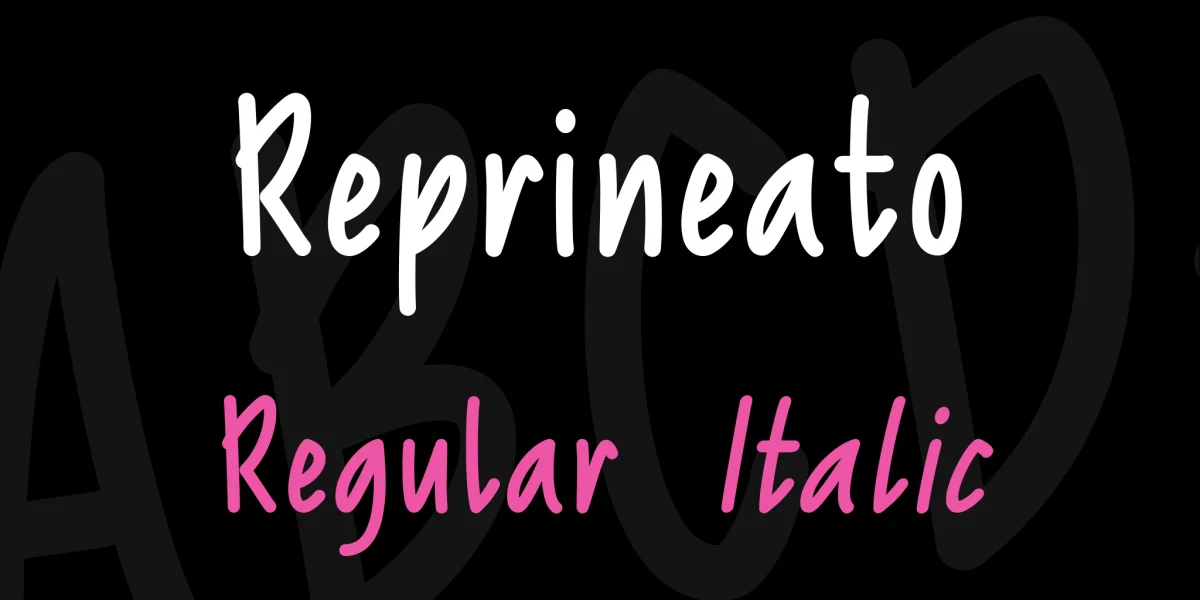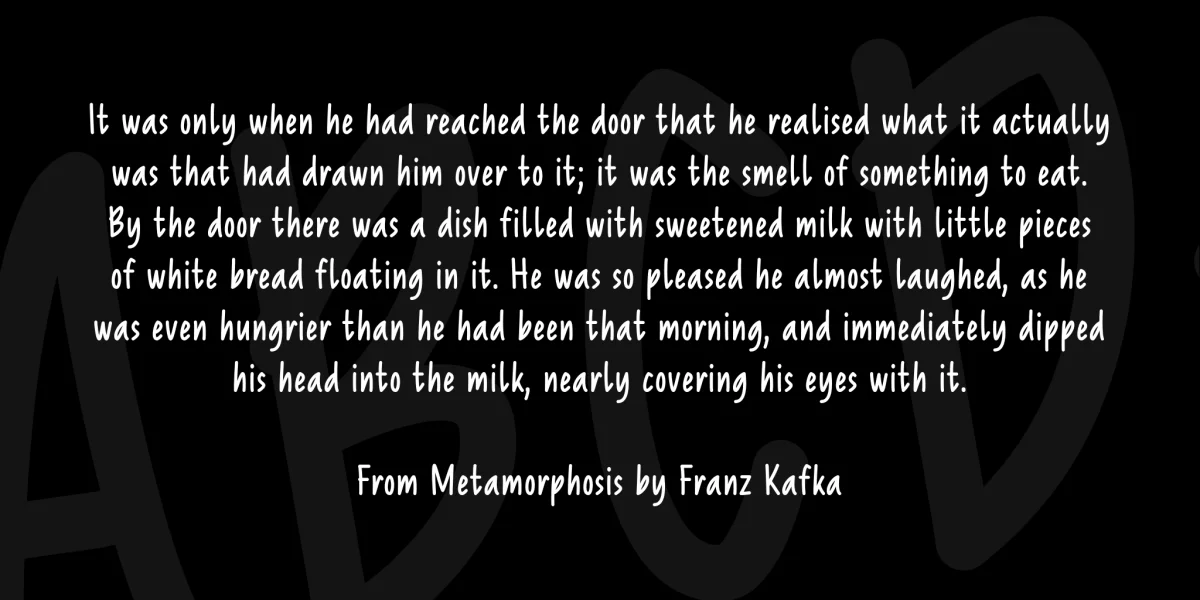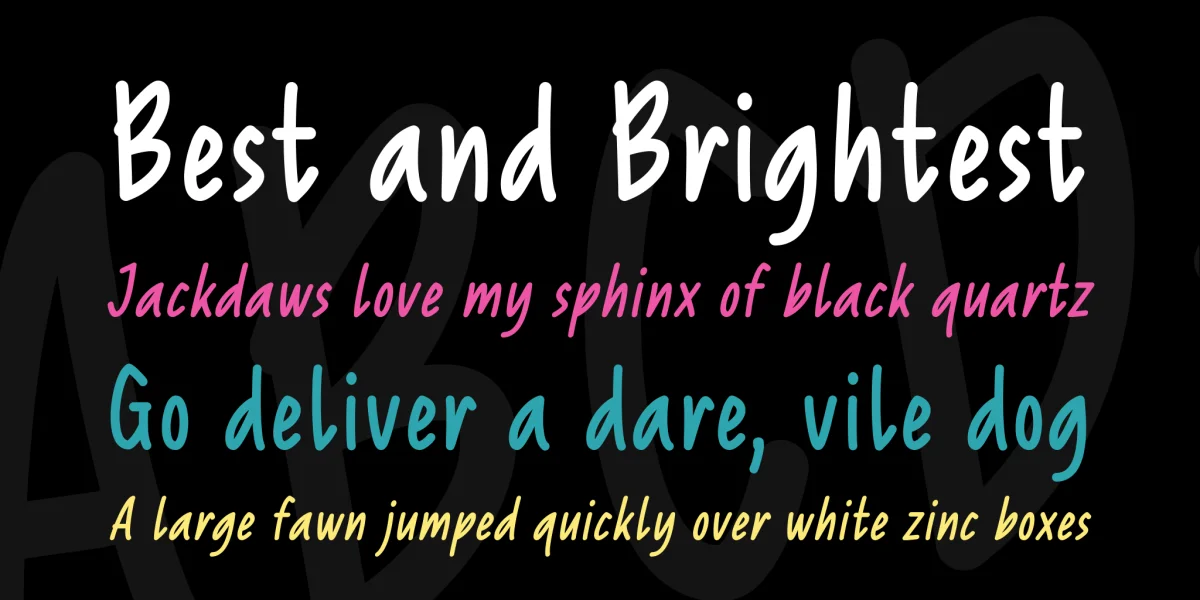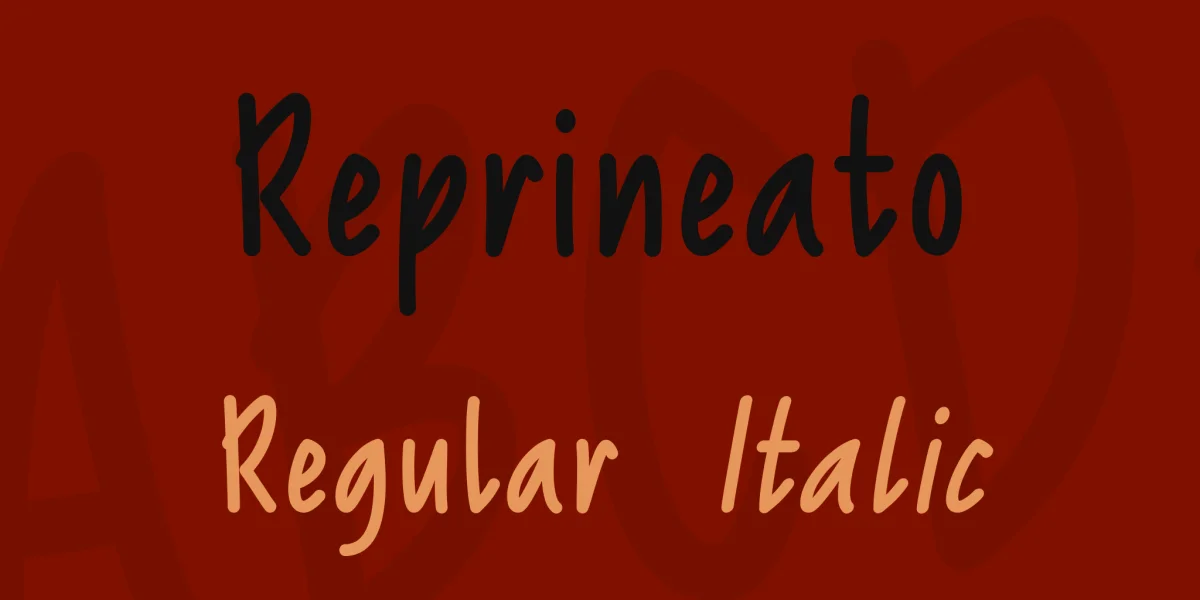
Reprineato is a bold expressive handwritten type created by Situjuh Nazara. It has a strong look and distinctive characters that makes it is easy to read and is great for adding a personal touch to designs without becoming too personal. This makes it perfect for adding a personal line in branding or marketing material.